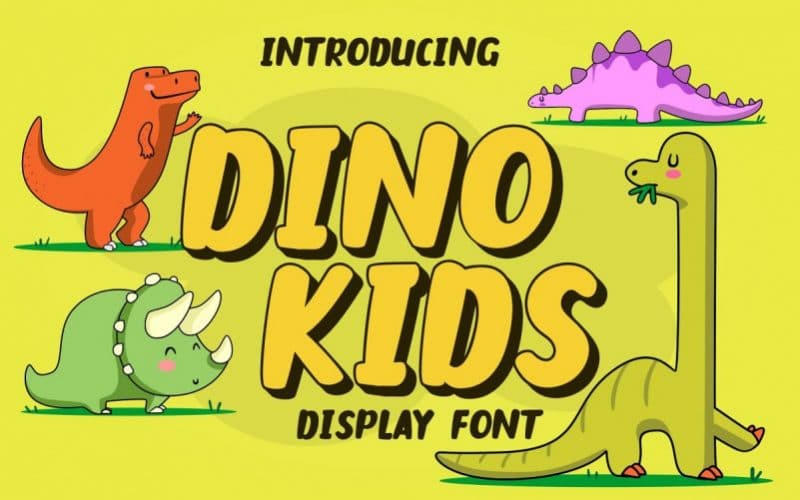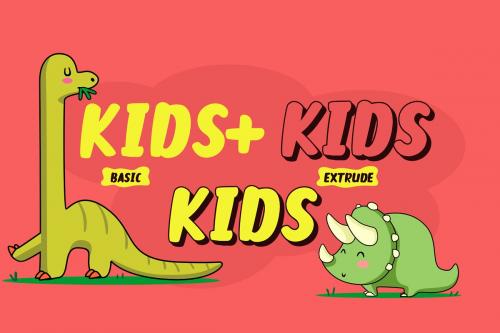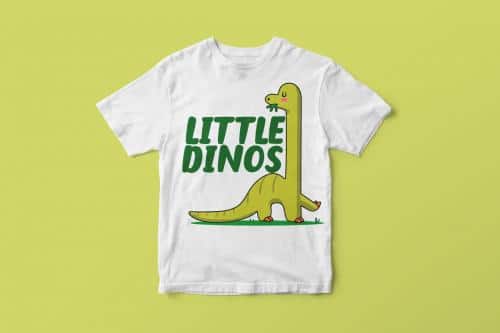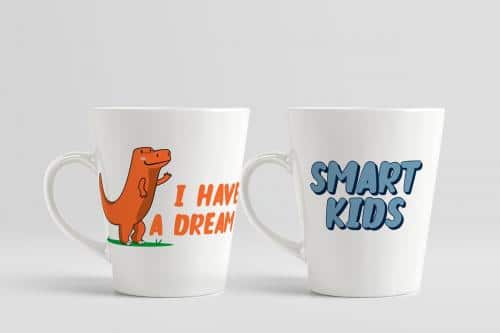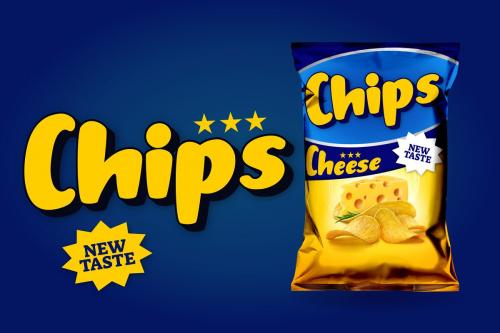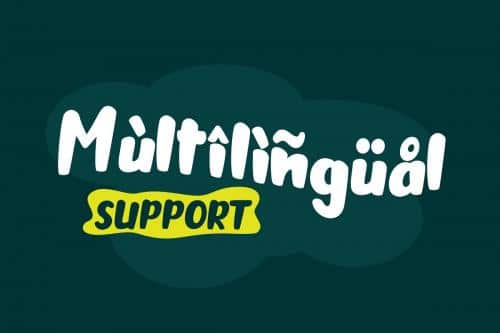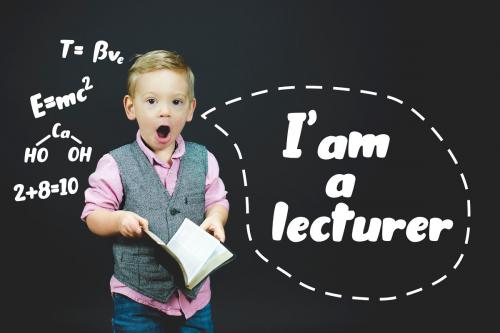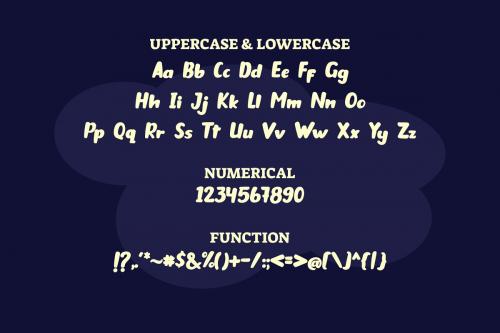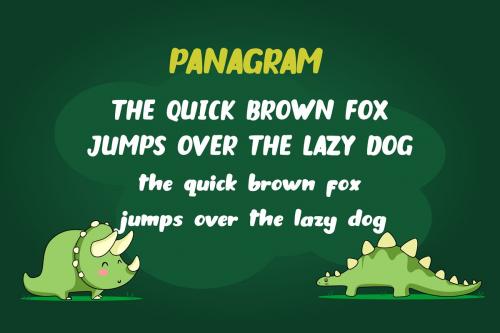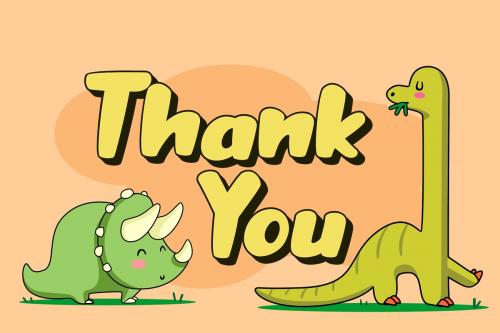
Dino Kids Inspired by Playful style and combination with Hand Lettering style. Every single letters have been carefully crafted to make your text looks beautiful.
- Designer: BearyType